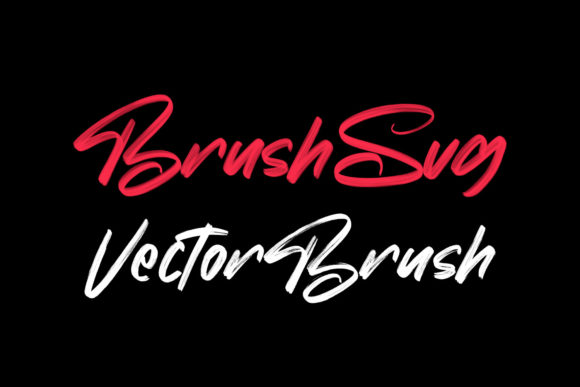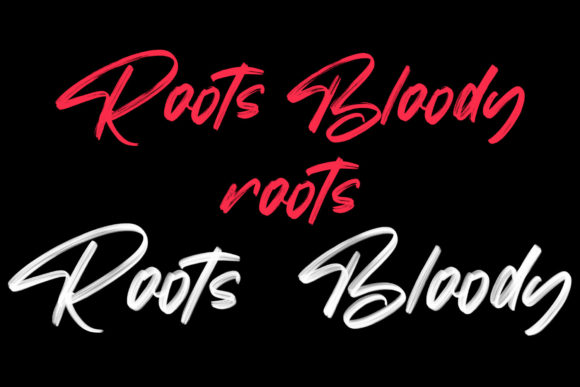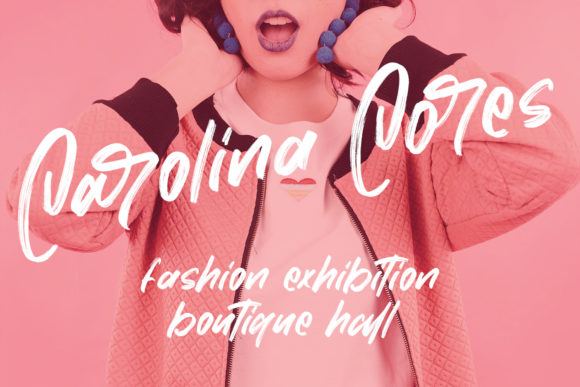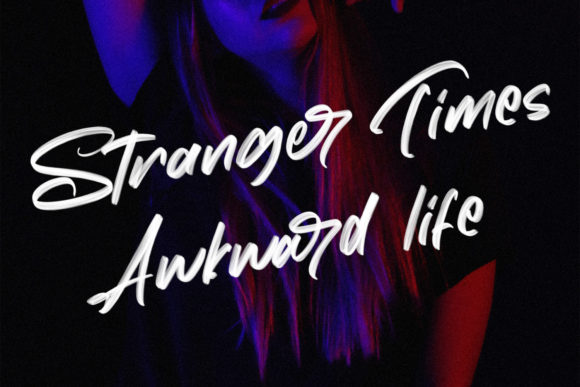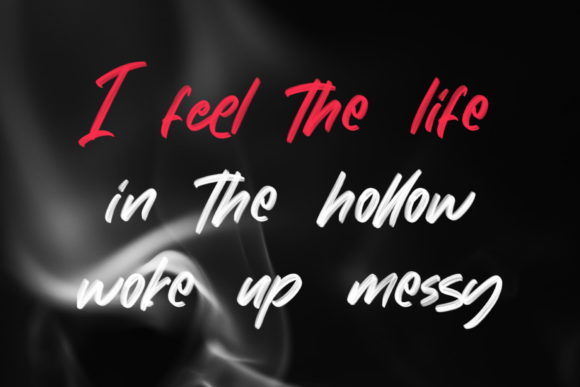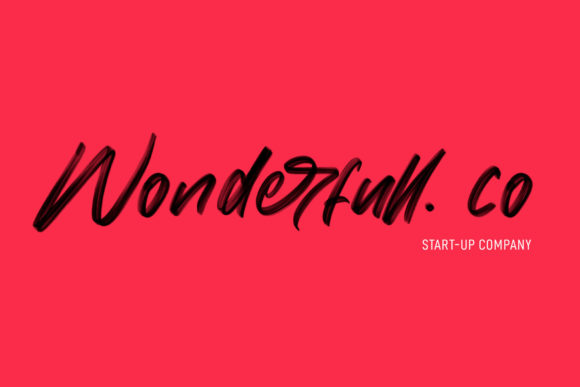
Introducing Chorest Font: The Ultimate Casual and Brushed Street Style Display Font
Are you a designer or crafter looking for a font that can add a touch of casual coolness to your designs? Look no further than Chorest Font! This street-styled display font is perfect for creating eye-catching designs for t-shirts, sportswear, logos, advertisements, clothing, and more. In this article, we’ll dive into the features and benefits of Chorest Font, and explore how it can elevate your design game.
What is Chorest Font?
Chorest Font is a casual and brushed display font that embodies the spirit of street style. Its unique, hand-crafted look gives it a laid-back, effortless vibe that’s perfect for designs that need to stand out from the crowd. With its bold and edgy aesthetic, Chorest Font is ideal for creating attention-grabbing headlines, logos, and advertisements.
Key Features of Chorest Font
- Unique Brushed Texture: Chorest Font features a distinctive brushed texture that gives it a rough, street-style look. This texture adds a layer of depth and visual interest to your designs, making them more engaging and dynamic.
- Casual and Relaxed: Unlike traditional serif or sans-serif fonts, Chorest Font has a casual, laid-back feel that’s perfect for designs that need to convey a sense of coolness and approachability.
- Highly Versatile: Chorest Font is suitable for a wide range of design applications, from t-shirts and sportswear to logos, advertisements, and more.
- Easily Readable: Despite its bold and edgy look, Chorest Font is surprisingly easy to read, making it perfect for headlines, titles, and short paragraphs of text.
Use Cases for Chorest Font
So, what can you create with Chorest Font? The possibilities are endless! Here are some ideas to get you started:
- T-Shirt Designs: Create eye-catching t-shirt designs that will stand out from the crowd. Chorest Font is perfect for printing on dark or light-colored tees.
- Sportswear and Activewear: Add a touch of street style to your sportswear and activewear designs with Chorest Font. It’s perfect for creating bold and edgy logos, slogans, and taglines.
- Logo Design: Use Chorest Font to create unique and memorable logos for your clients or business. Its bold and edgy look makes it perfect for brands that want to stand out.
- Advertisements: Create attention-grabbing advertisements with Chorest Font. Its highly readable and easy-to-understand design makes it perfect for headlines, titles, and short paragraphs of text.
Why Choose Chorest Font?
So, why should you choose Chorest Font for your design projects? Here are just a few reasons:
- Unique and Authentic: Chorest Font offers a unique and authentic look that’s hard to find in other fonts. Its hand-crafted texture and casual vibe make it a standout choice.
- High-Quality Design: Chorest Font is designed with high-quality and precision in mind. Its clear and crisp lines ensure that your designs will look great even at small sizes.